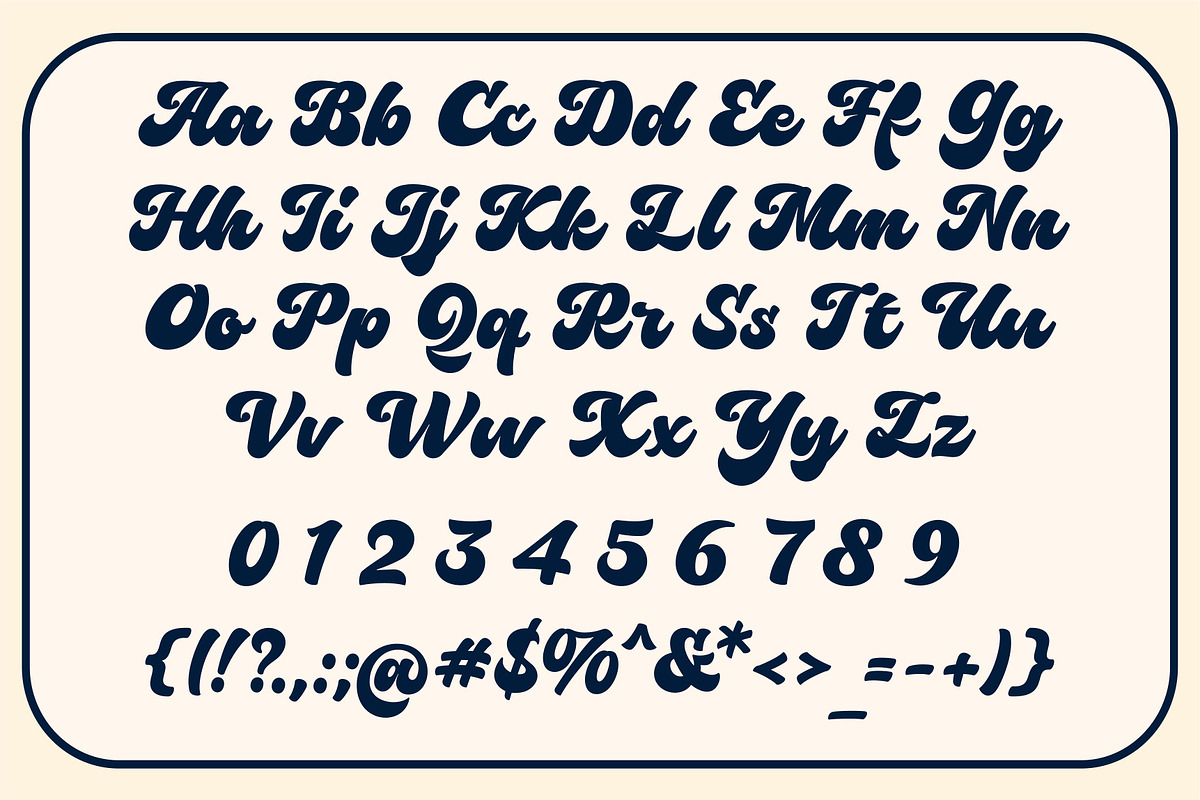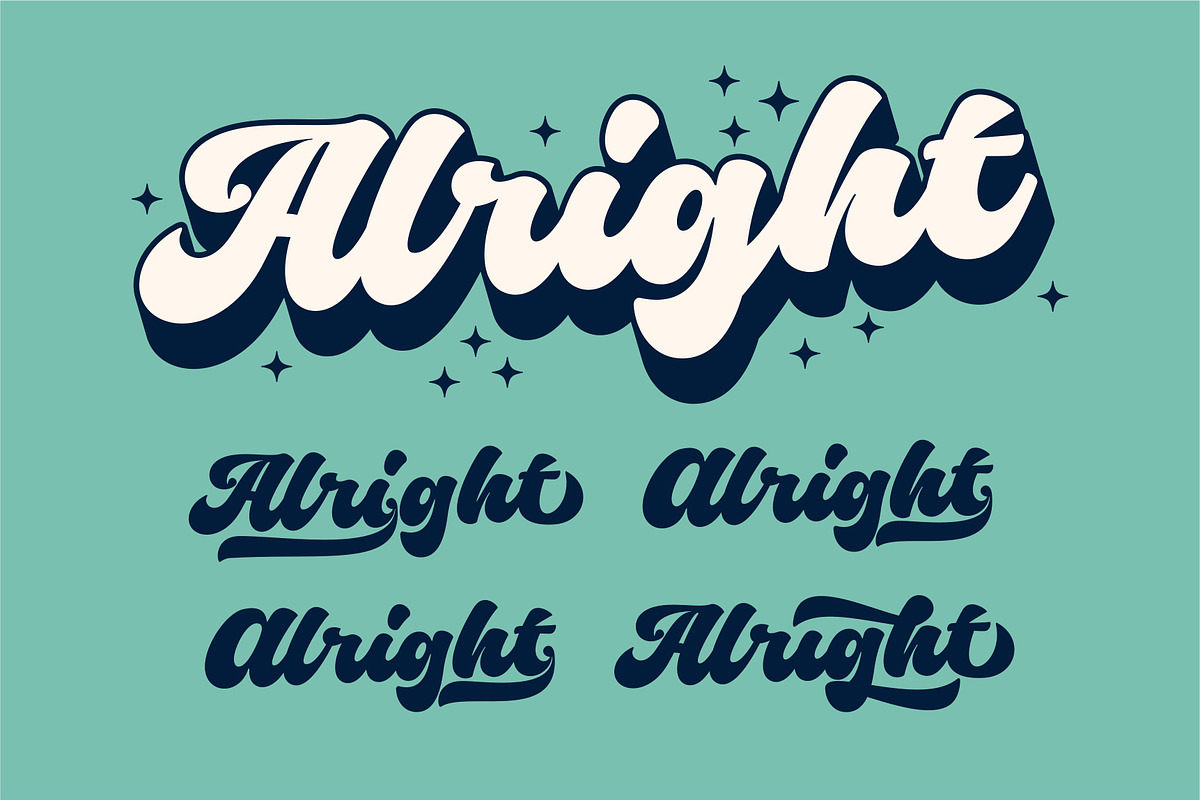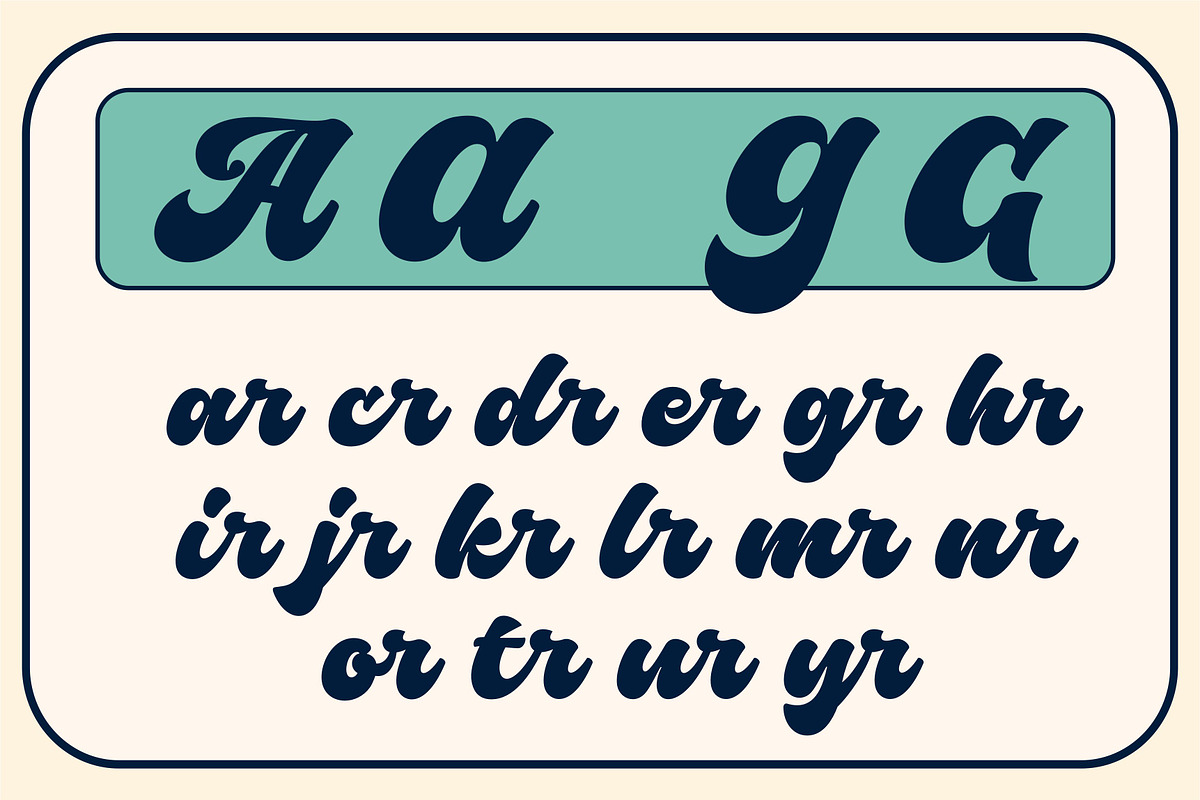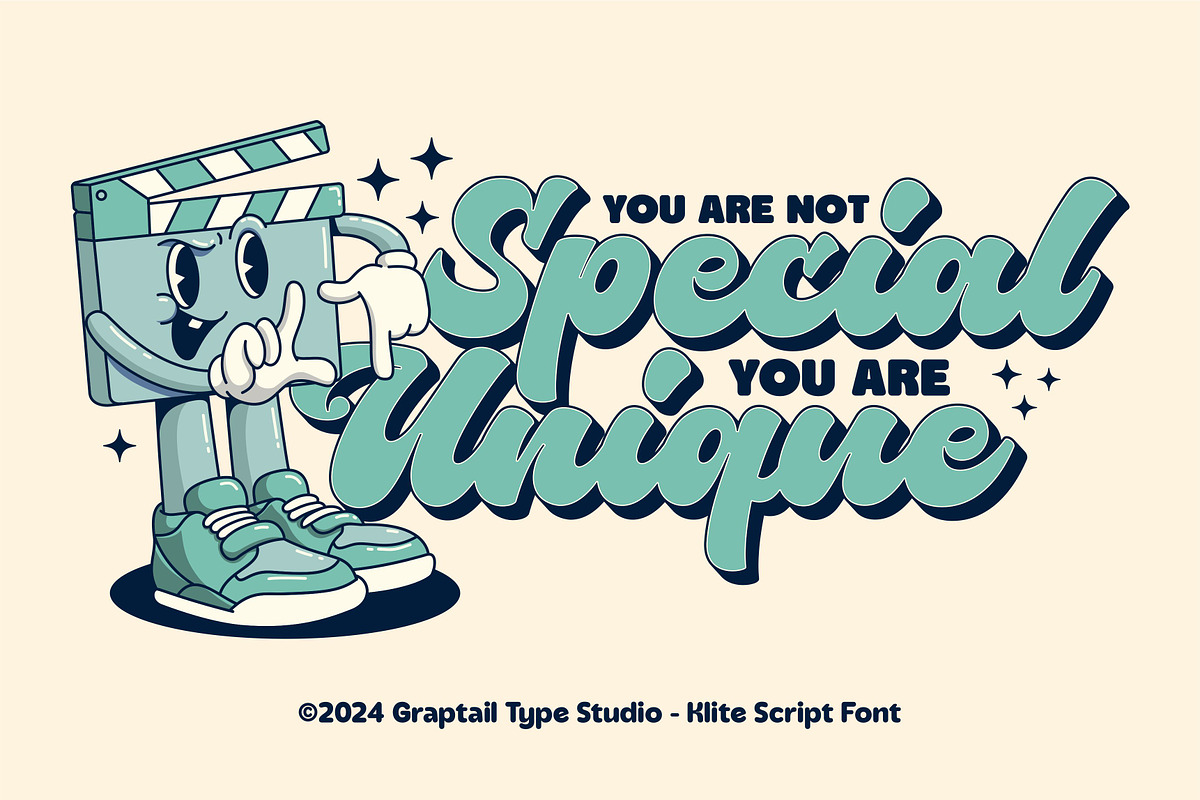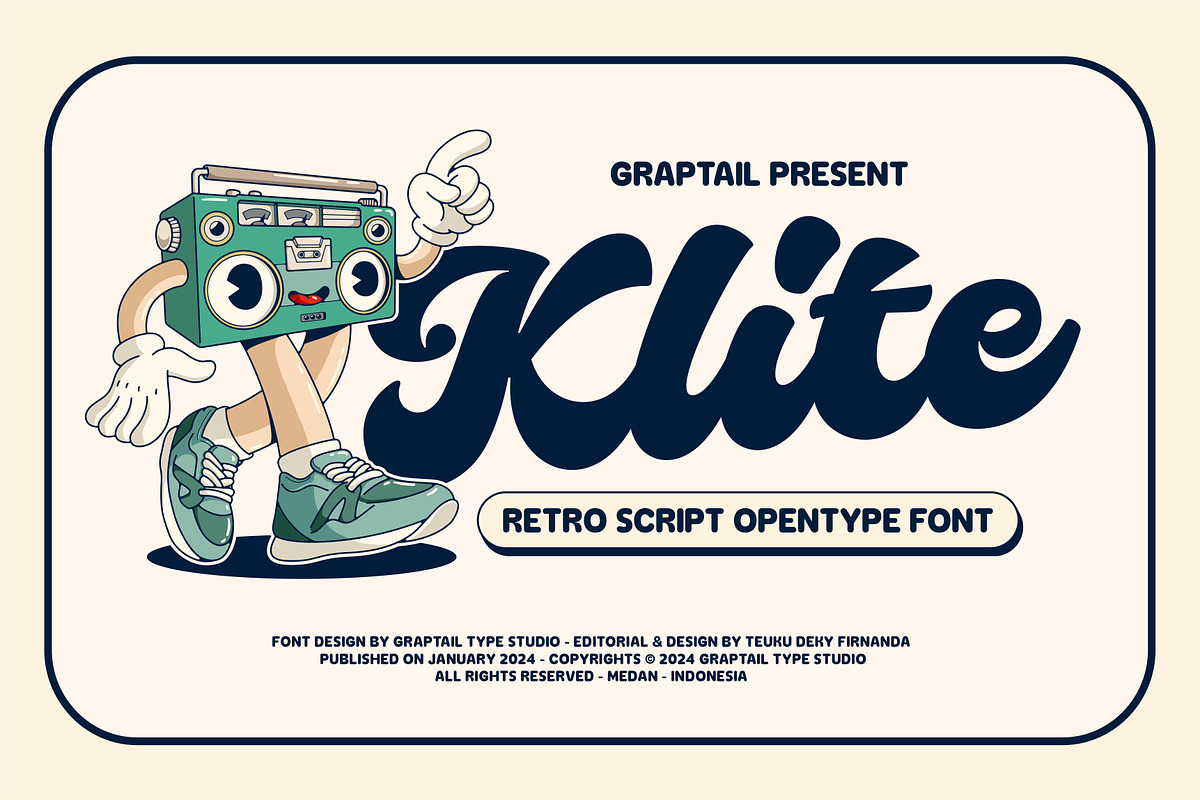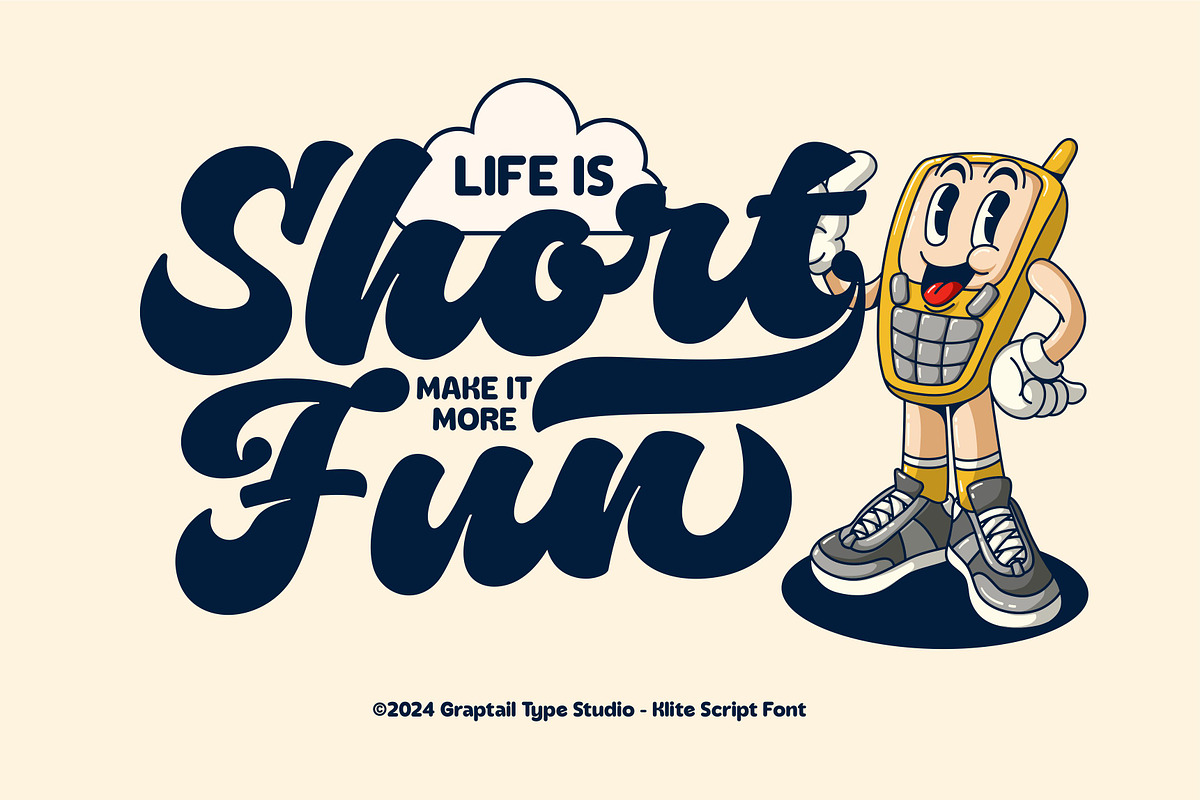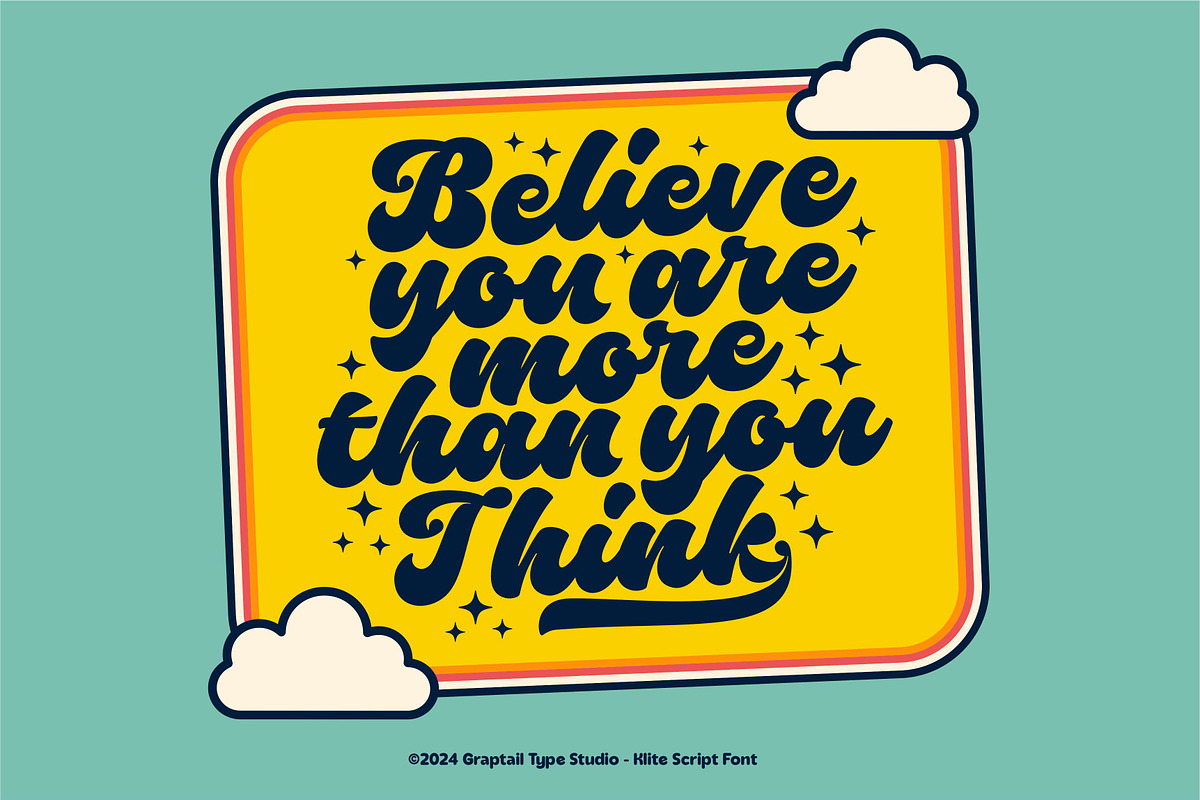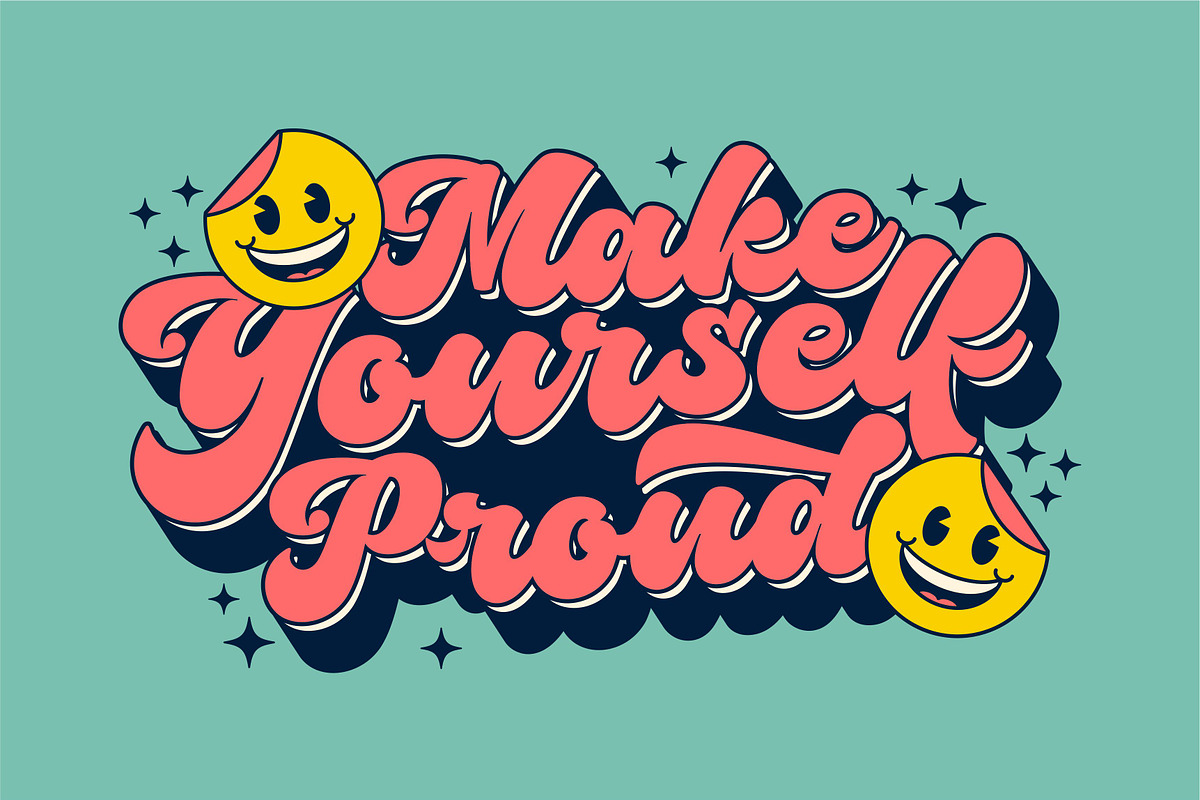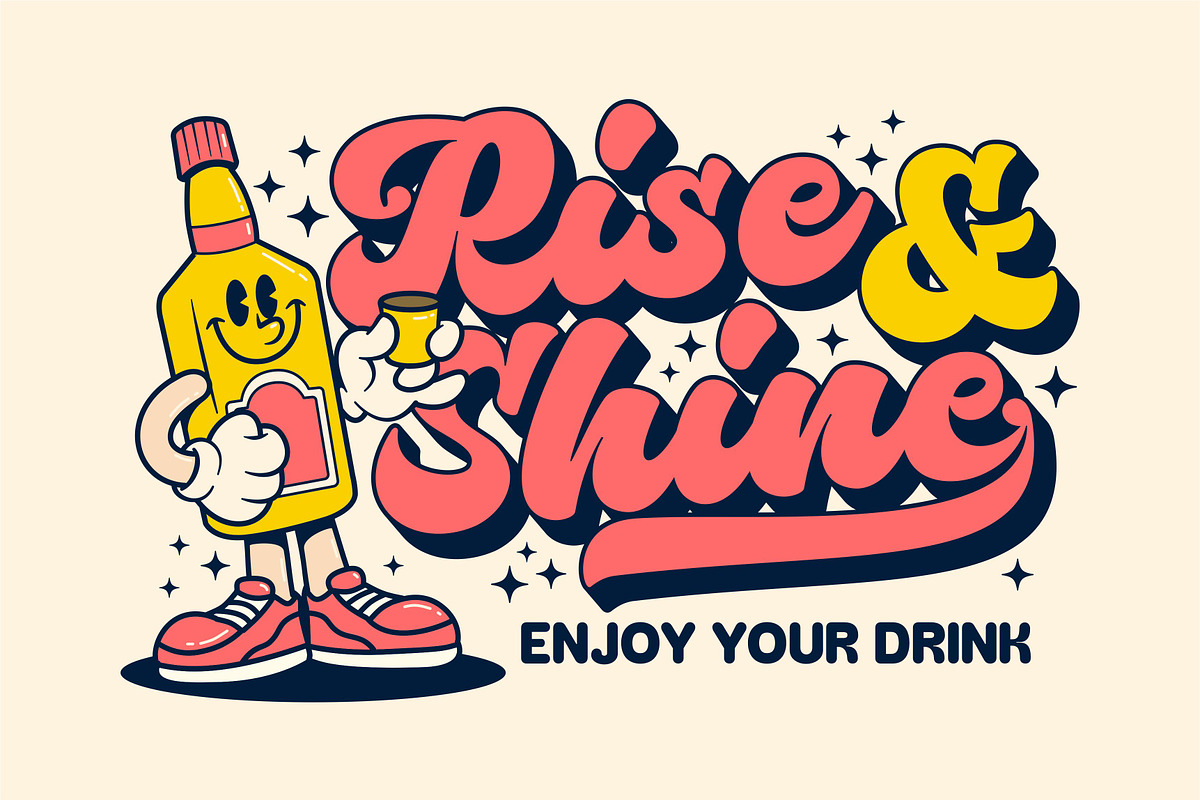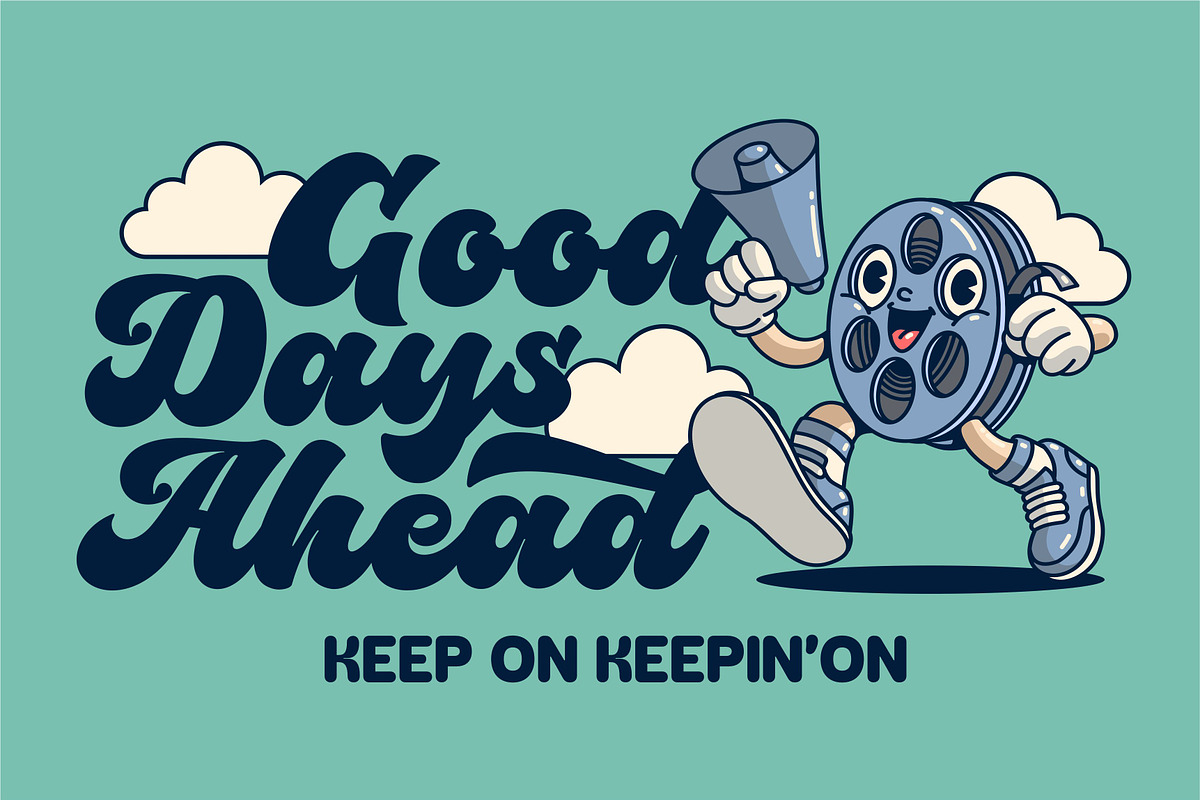
Klite - Retro Script
Klite - Retro Script is a stylish font with a modern and retro look. It comes with alternatives and ligatures and helps create stunning logos, quotes, blog posts, branding projects, magazine imagery, wedding invitations, and much more.
This font is perfect for creating nostalgic designs, such as retro/groovy posters, advertisements, and packaging. It's also great for creating unique and eye-catching titles and headings.